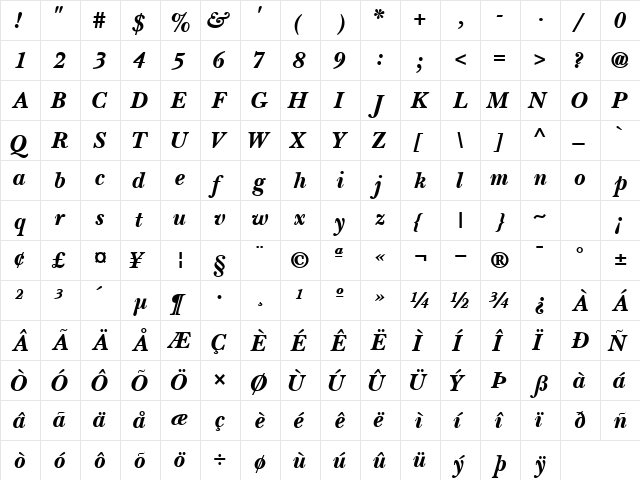
BaskervilleBlackSSK Italic
Design Context for BaskervilleBlackSSK Typeface
BaskervilleBlackSSK is a composed and adaptable typeface that performs quietly and consistently across a wide range of design contexts. The slanted form adds forward momentum and visual energy.
Pro Tip: Use BaskervilleBlackSSK for emphasis, pull quotes, and subheadings where its slanted energy can add rhythm to the layout.